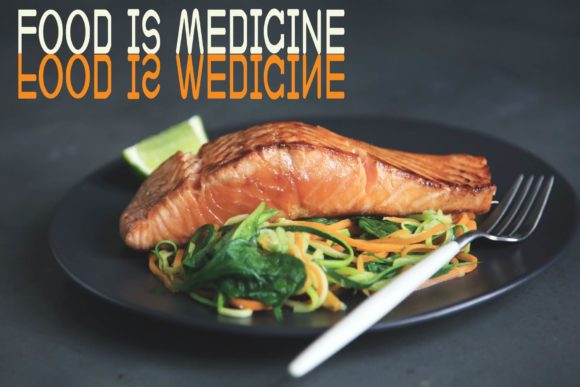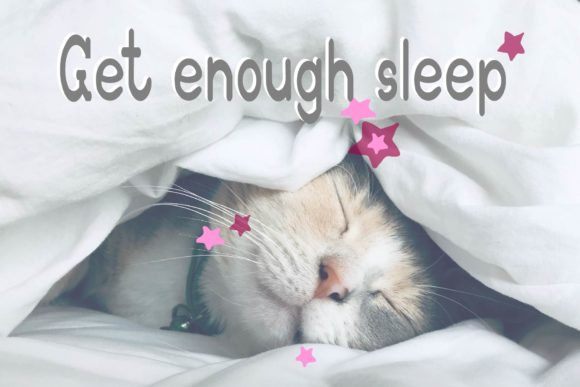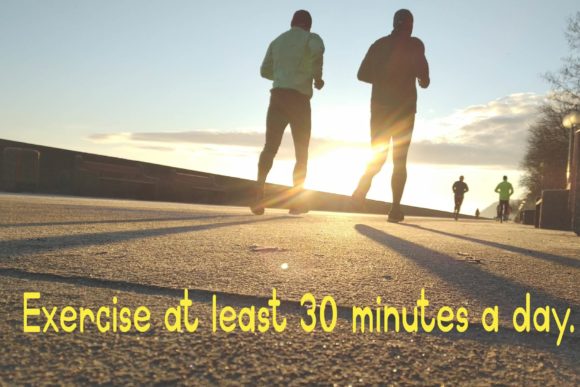
Introduction to Beauty Slim Font
Have you ever been working on a creative project, pouring your heart and soul into it, only to feel like something’s missing? You’ve got the perfect concept, but the design just isn’t quite there? For many designers, this is a familiar struggle, and it’s where the right font can make all the difference.
That’s where the Beauty Slim Font comes in – a high-quality, free download that’s sure to elevate your design game. This simple yet stylish font is perfect for adding a touch of elegance to any creative project. With its unique, abstract shapes and transparent background, Beauty Slim Font is a valuable design resource that’s sure to make your work stand out.
Key Features of Beauty Slim Font
- High-quality font design with a unique, modern aesthetic, ideal for creative projects
- Includes a transparent background, allowing for easy customization and composition
- Features a slim, elegant design with clean lines and minimal ornamentation, making it perfect for minimalist and modern designs
Honest Review: Beauty Slim Font
I recently had the chance to experiment with the Beauty Slim Font, a high-quality font that’s perfect for creative projects. One of the first things I noticed was its clean and modern design, making it ideal for a variety of applications.
What works well: ✨ The font’s high level of detail and precision makes it stand out from other free downloads. It’s also incredibly versatile and can be used for both personal and professional projects. I was impressed by the transparent background, which made it easy to integrate into my design.
Some limitations: ⚠️ While the font is well-designed, it’s not without its limitations. For one, it’s only available in a limited number of weights, which may make it less suitable for complex designs that require a range of font styles. Additionally, the font may not be as widely supported as some other popular fonts.
Overall, I was impressed by the Beauty Slim Font and would definitely consider using it in future creative projects. With its high quality design and transparent background, it’s a valuable resource for any designer looking to add some visual flair to their work.
- Perfect for creative projects
- Modern and clean design
Experiment with different font sizes and colors to create a visually appealing design. Use the font in combination with other design elements, such as images and graphics, to create a cohesive look. Take advantage of the high quality and transparent background of the font to create a truly unique design.
Common Use Cases for Beauty Slim Font
Beauty Slim Font is perfect for a variety of creative projects, including branding, marketing materials, and digital design. It’s also great for creating titles, headings, and body text for presentations, documents, and websites. The font’s high quality and transparent background make it an ideal choice for designers who want to create visually appealing and professional-looking designs.
Can I customize the Beauty Slim Font to fit my specific design needs?
While the Beauty Slim Font is designed to be versatile and adaptable, it is not intended to be heavily modified. However, designers can experiment with different font sizes, colors, and combinations to create unique and creative designs. For more complex customizations, it is recommended to use font editing software or consult with a professional designer.